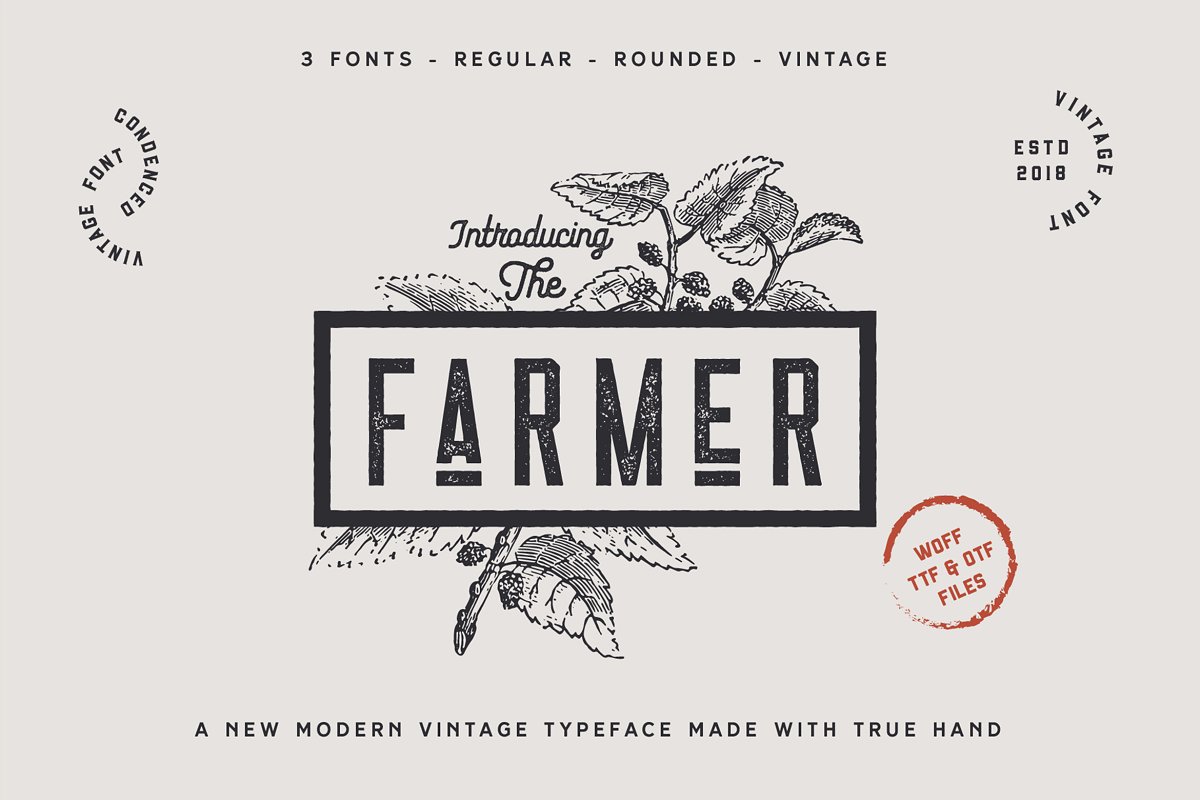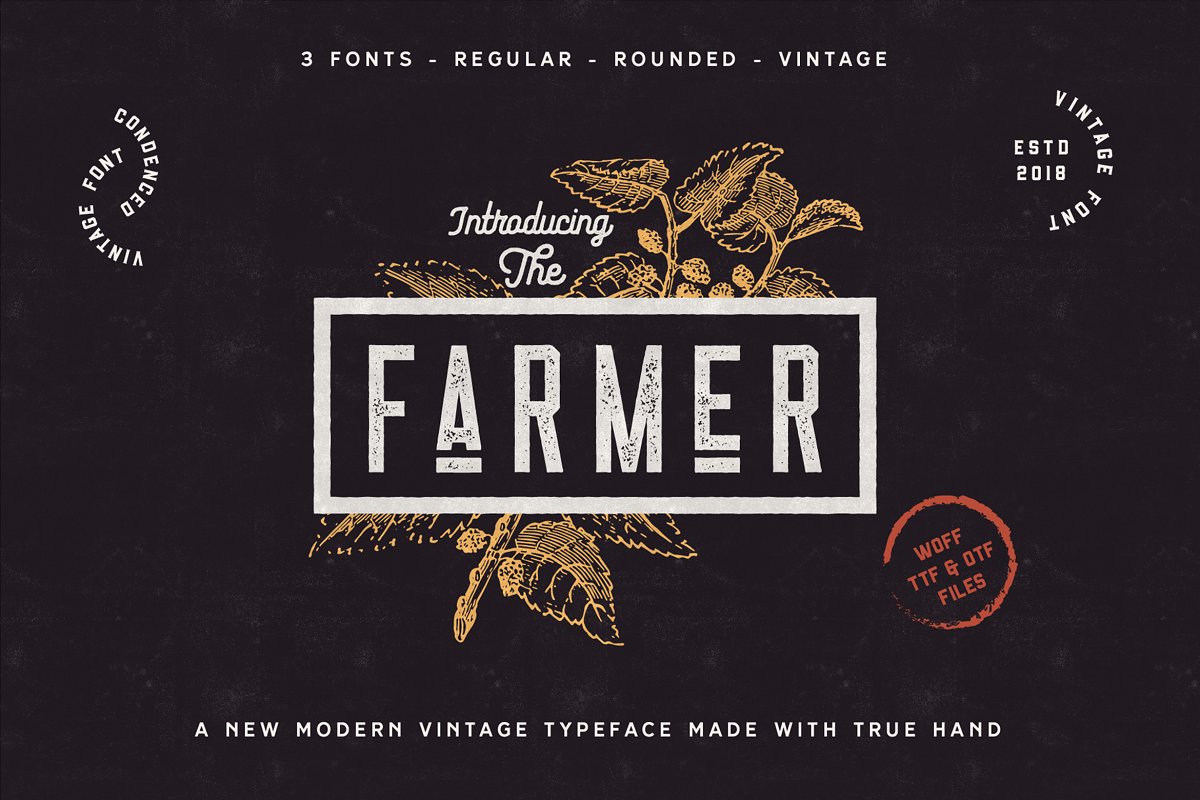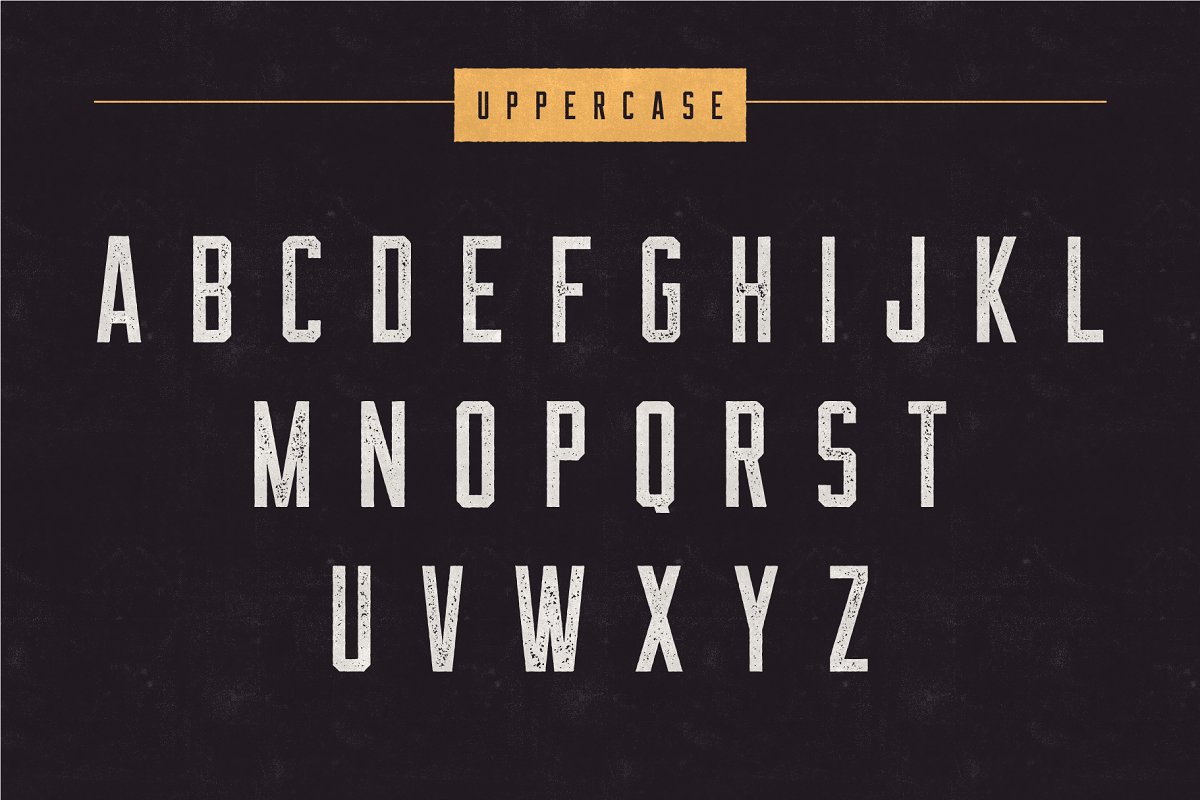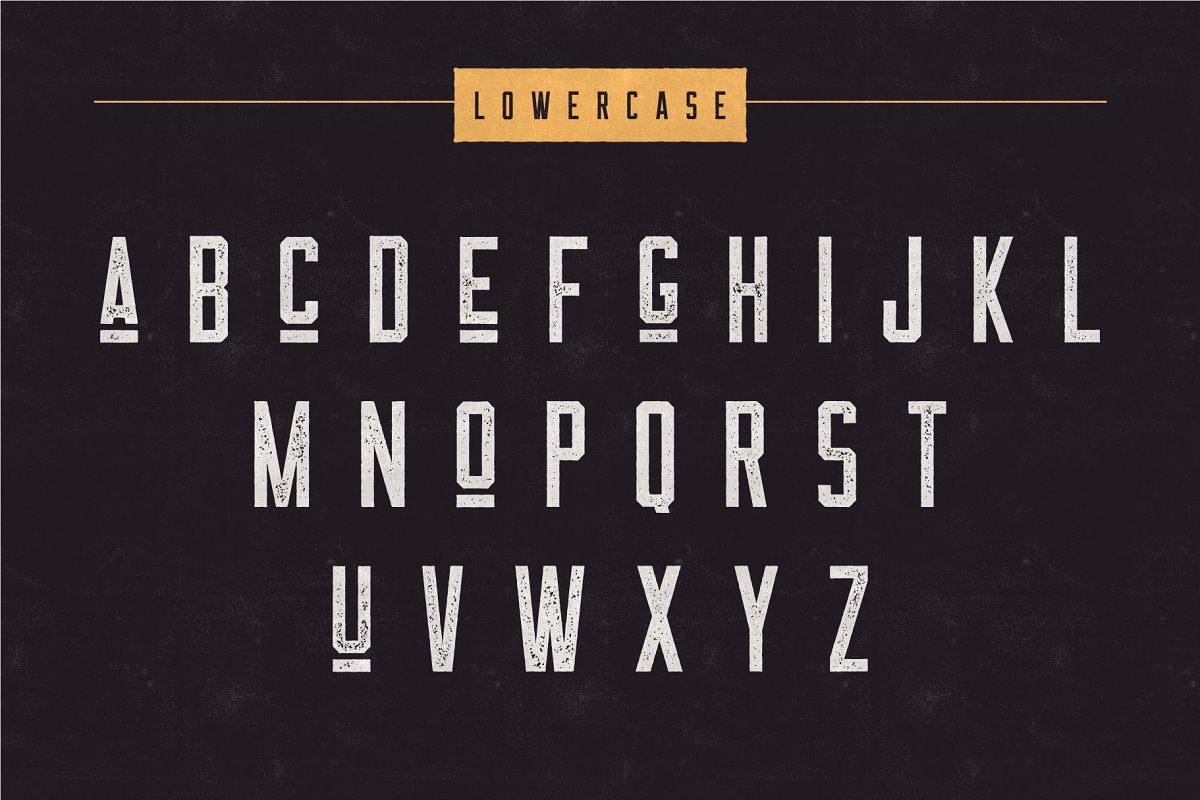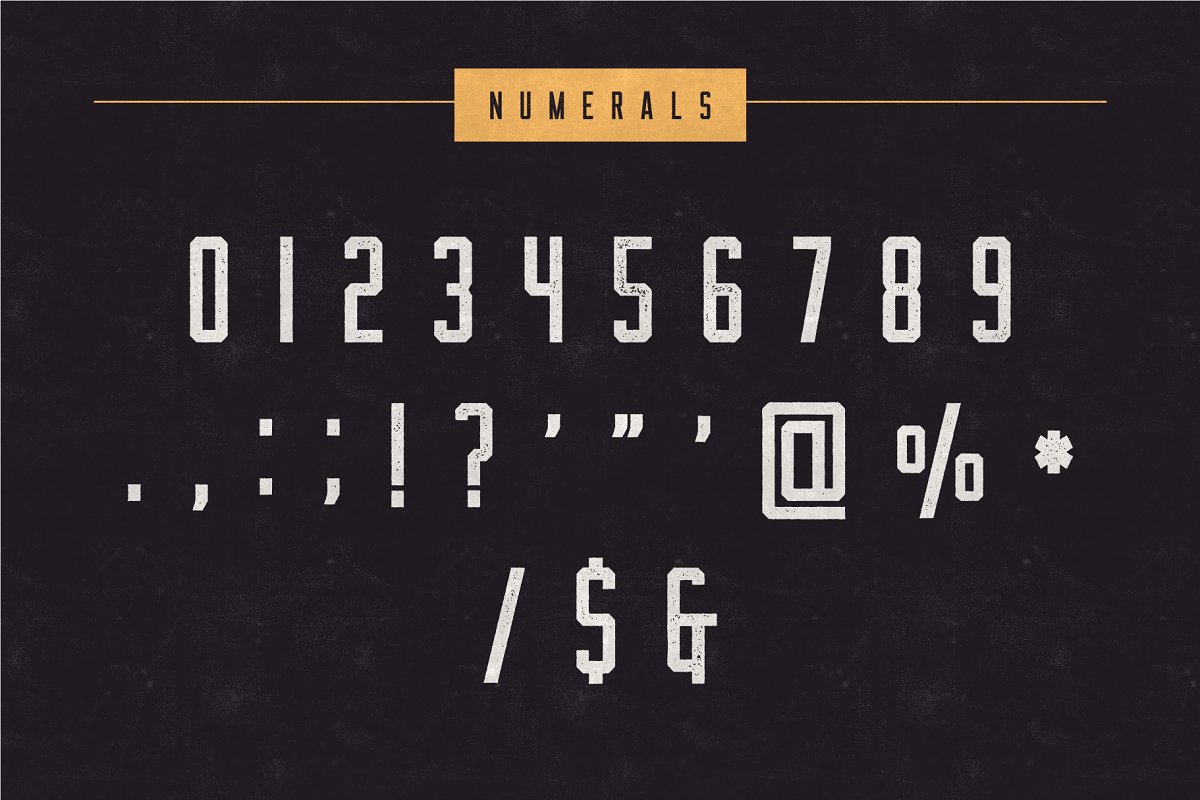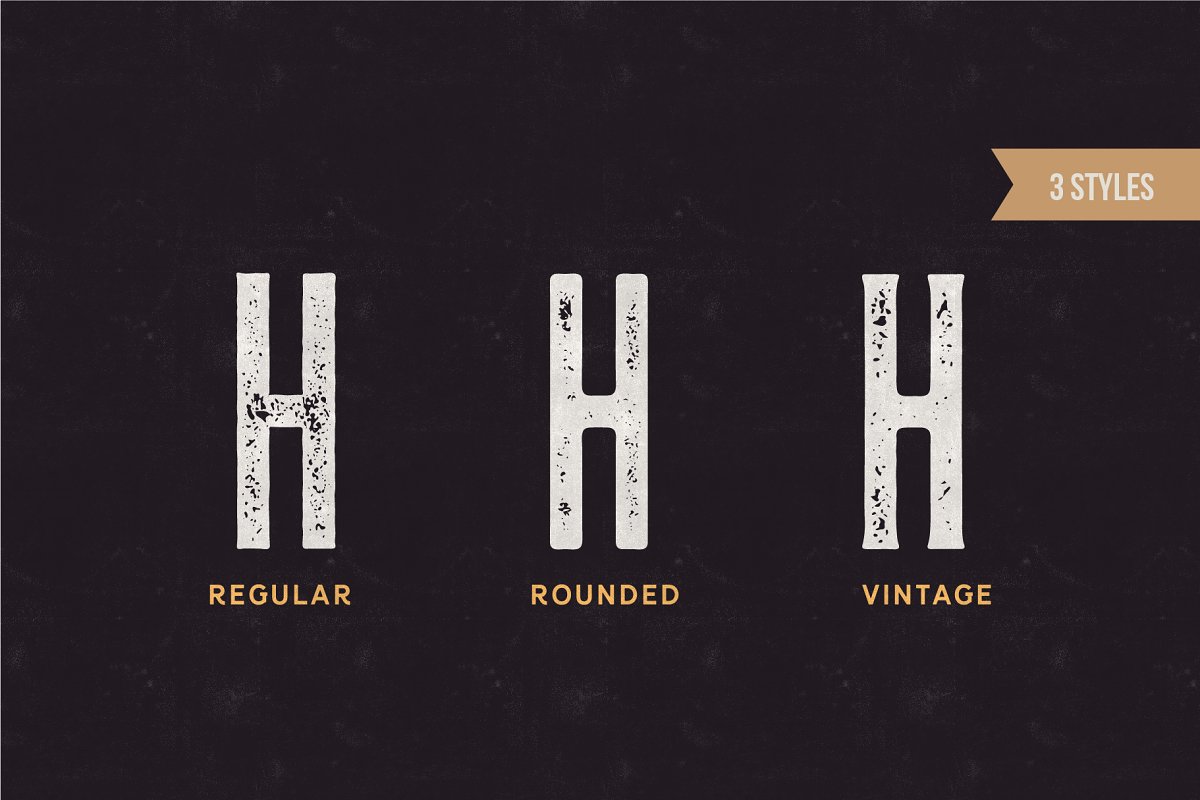
About the The Farmer Condensed Typeface Font
The Farmer is a Textured ultra condensed Type Family that includes 3 styles: Regular, Rounded & Vintage versions, This family is an All-Caps family with each version contains a textured (Aged) and alternates, With 3 styles and iconic alternates, The Farmer can give a diverse set of aesthetics, With light giving a much more simple modern vintage look, fashionable feel and the bold giving a more rugged vibe for Simple Coffee shop logo, Brewing Company logo, basically anything that look strong and mature design look